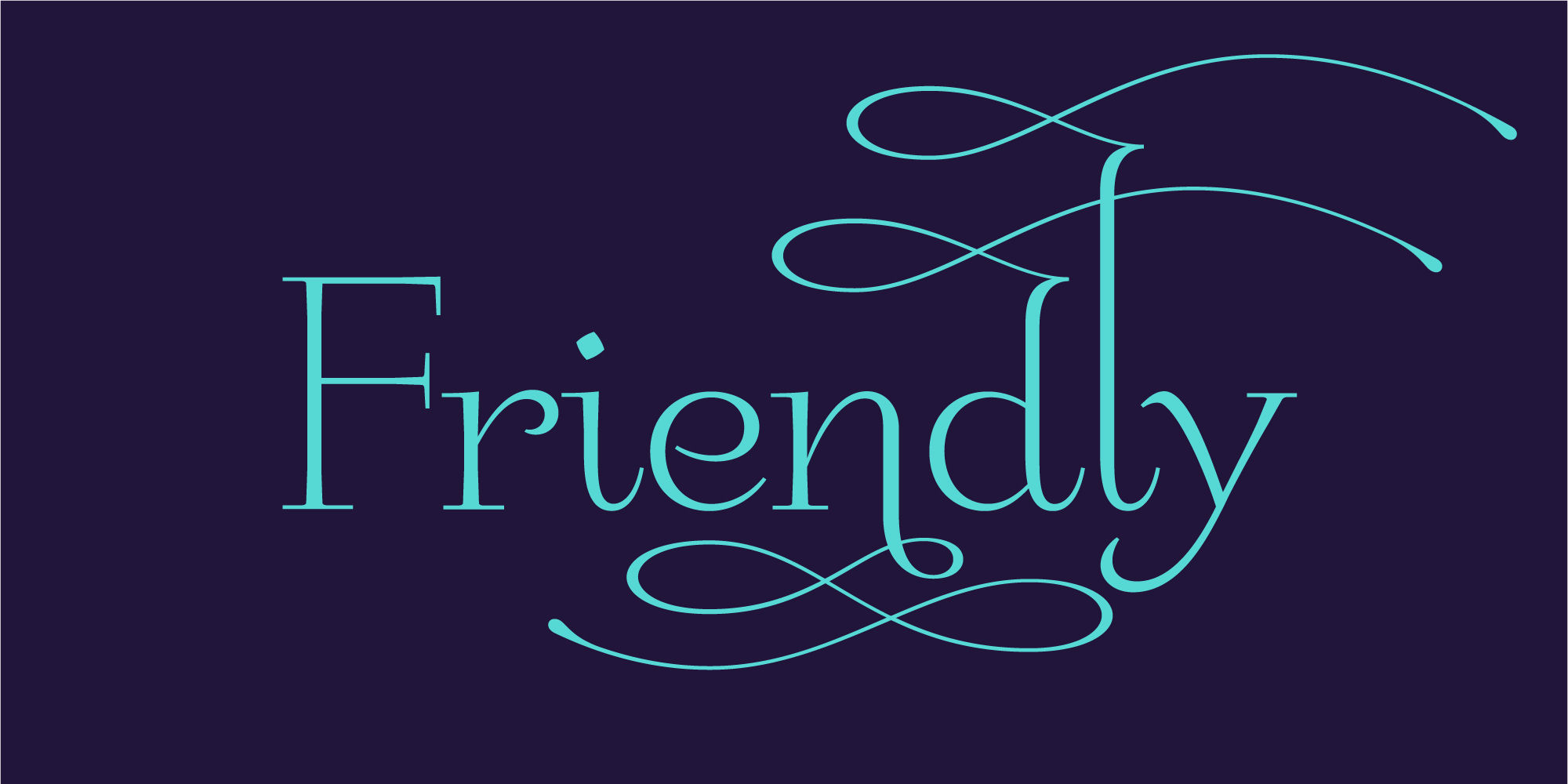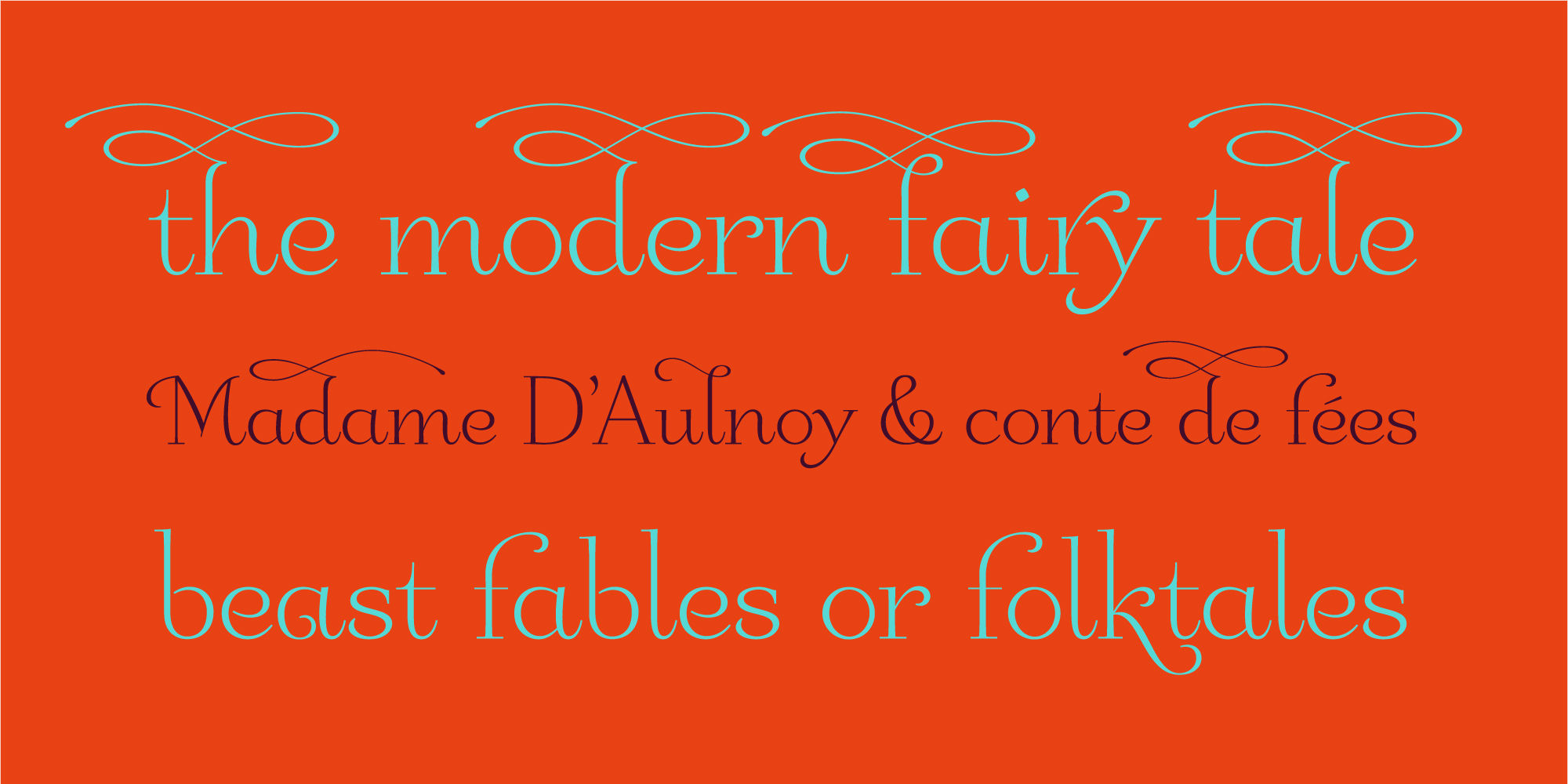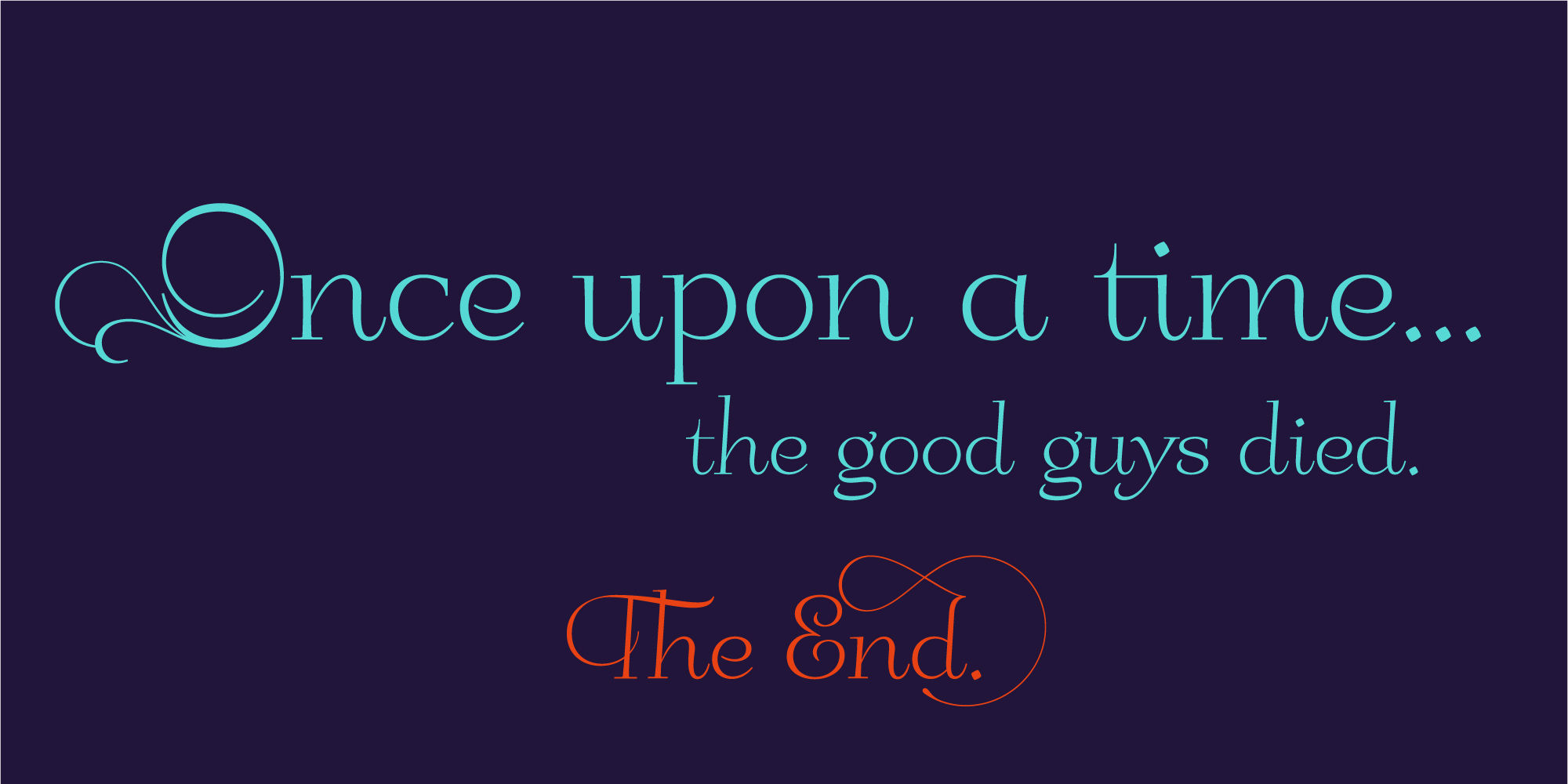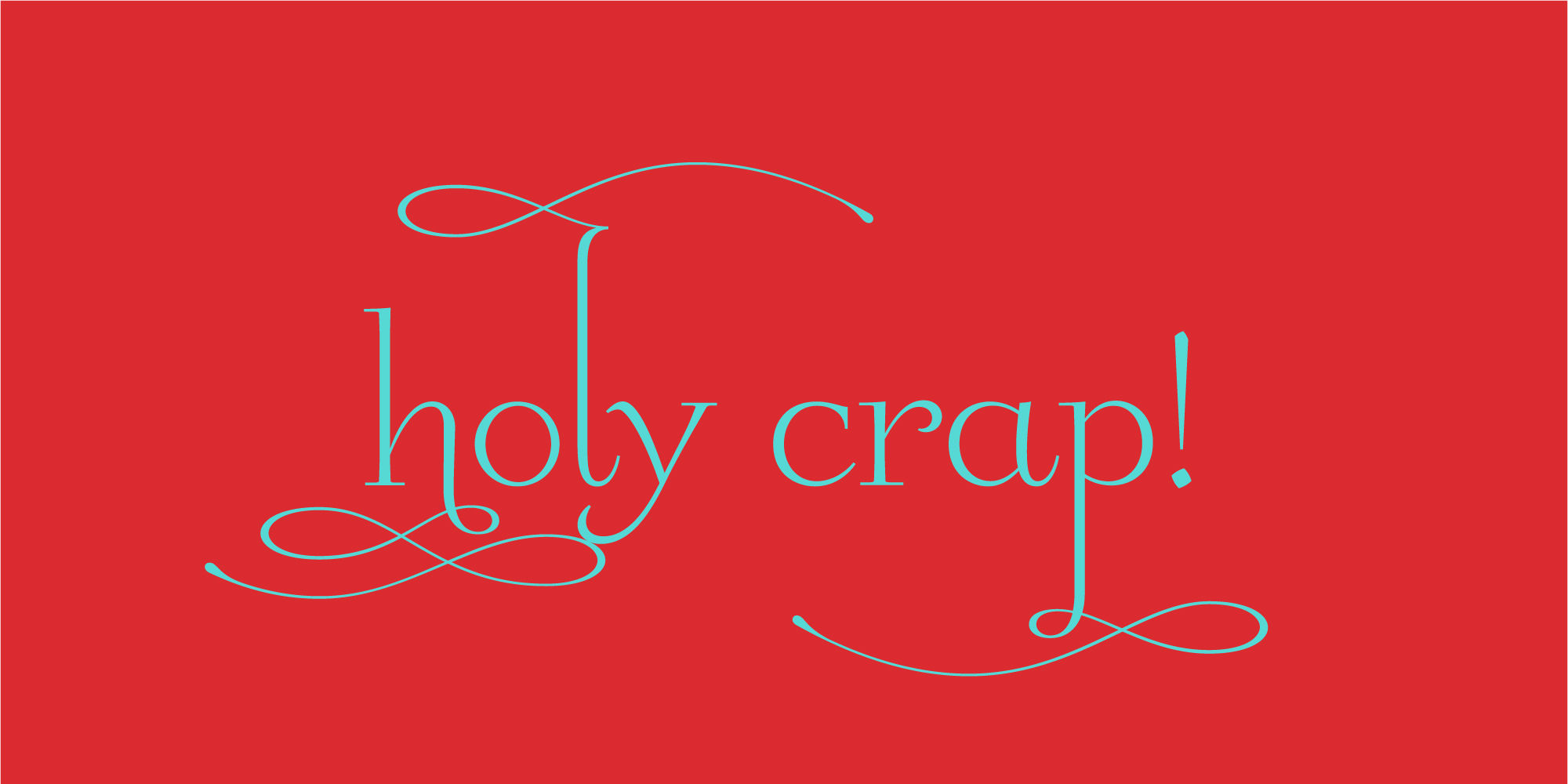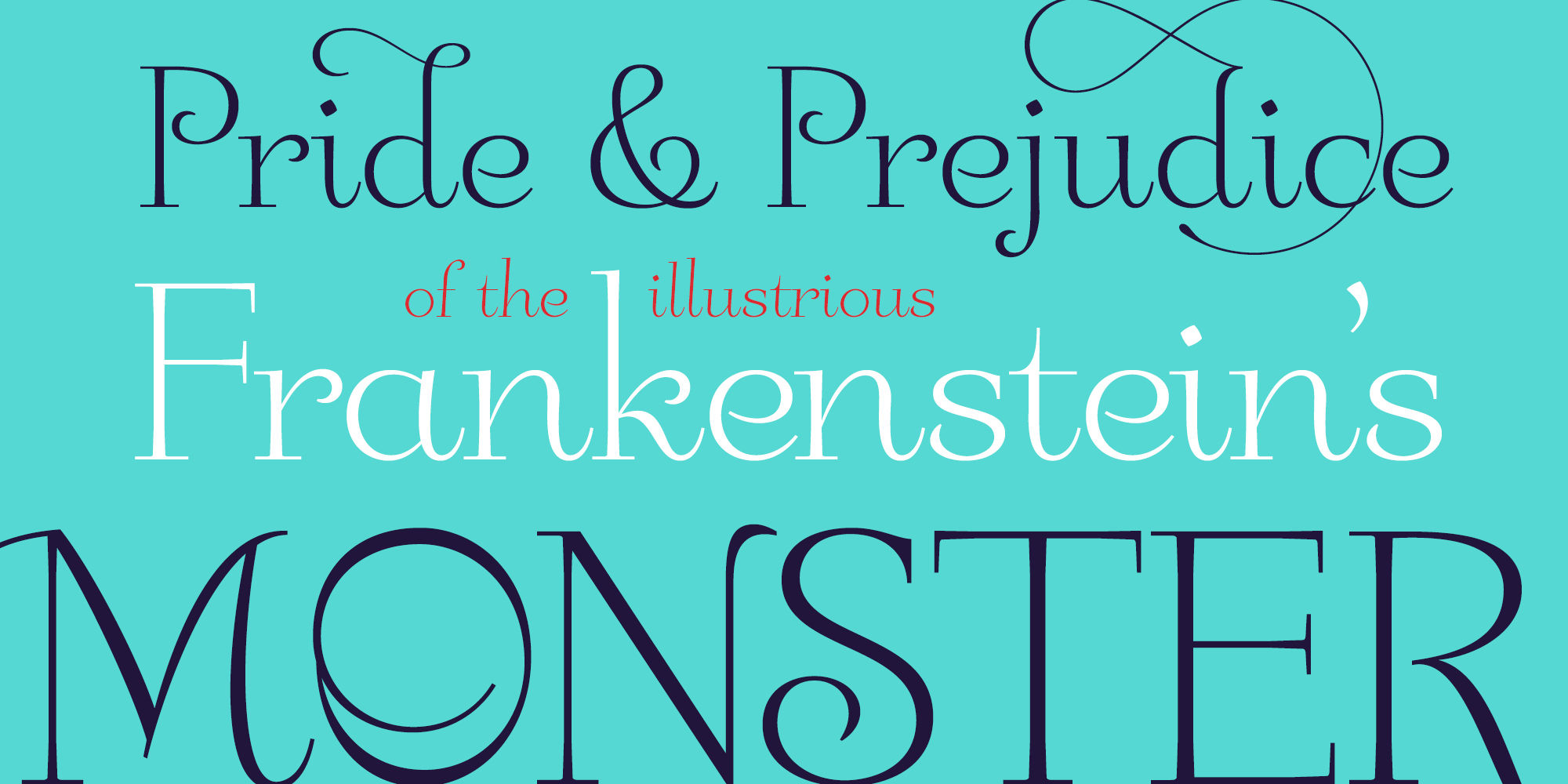
Friendly
Friendly is an homage to Morris Fuller Benton’s adorable Announcement typeface. It is not a strict interpretation, digital revival or reverent reproduction of the original letterforms… but I would be remiss and shady to not acknowledge the letterforms that inspired this typeface. If you are looking for a more accurate ‘scanned revival’ I would recommend searching “Announcement” on MyFonts. As stated earlier, it is an homage to the original letterforms of the typeface but takes a great bit of freedom tightening the construction up in order to loosen up the movement of the variant letterforms to allow a great deal of usable personality. I enjoy stating this dichotomy… “loosen up to tighten up the forms” and vice versa. It seems counterintuitive or silly but by allowing the letterforms to normalize, I felt more comfortable going back and adding rather indulgent personality. Infused with stylistic alternates, swashes, titling, many many contextual alternates, 9 stylistic sets and 2 stylistic sets with wordmarks, the typeface became far more ‘friendly’ for me… how could it not? With so many loops, swashes and typographic indulgences, it was bound to be fun.
The more elaborate and ‘overdone’ Friendly got, the more I wanted to slant it. Here’s where my thinking differs from MFB’s original. I like slanted romans… especially ones with long ascenders, but I do not like much of a slant. It has to be the lettering person in me. It’s hard for me to do a completely upright serif and not pair it with an angle, but I did not feel Announcement’s ‘Italic’ offered much and the actual slant needed to be far less. If it’s not an italic, I prefer the letters to slant with an angle equivalent to the thickness of the vertical stroke. The Slanted version of Friendly is set at 3.6 degrees, is quite subtle, and very fitting for me.
You will find that most characters have a contextual, stylistic, swash and titling alternate assigned to them and some have an echoed alternate to the swash and titling options if the stylistic alt has been selected in tandem. Additionally, all of these are accessible in the glyph palette directly from the base glyph typed or through selecting options through the Stylistic Sets 1–9. Stylistic Sets 10 & 11 are a little different. They are actually configured as complex majuscule ligatures… a result of me getting carried away.
Other features like a default old style numeral set and coordinating glyphs have been produced along with case support, ordinals, and more have been added to make it more relevant for contemporary use.